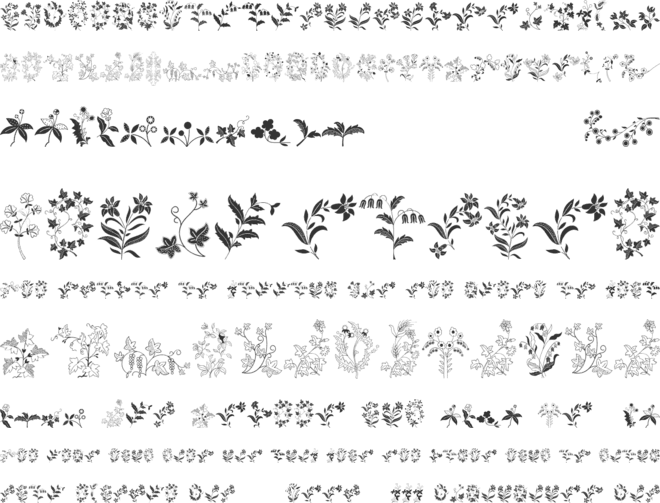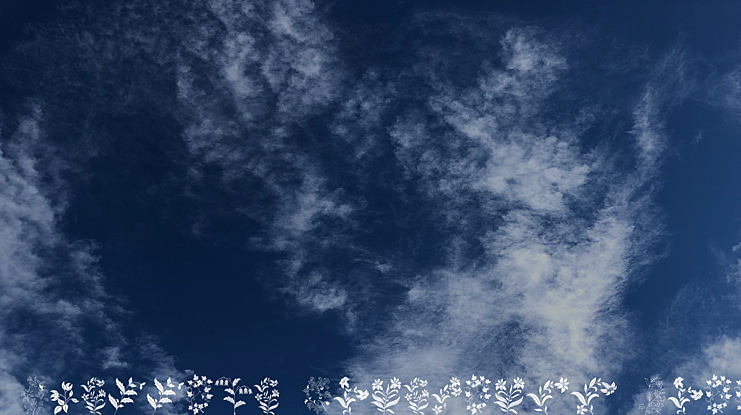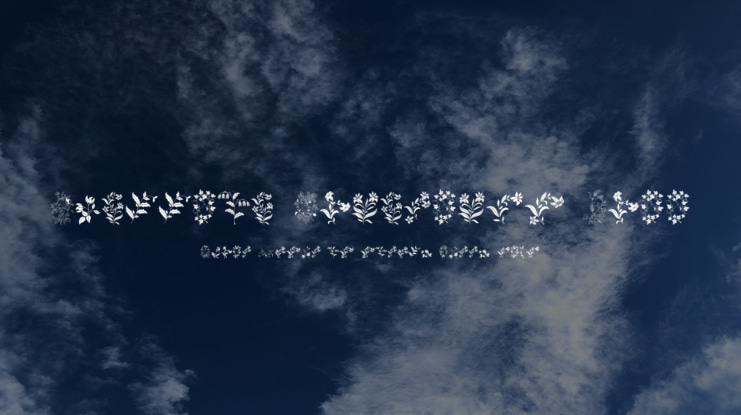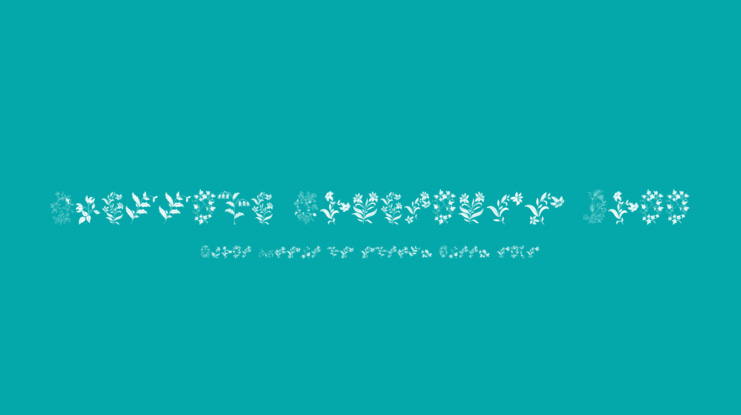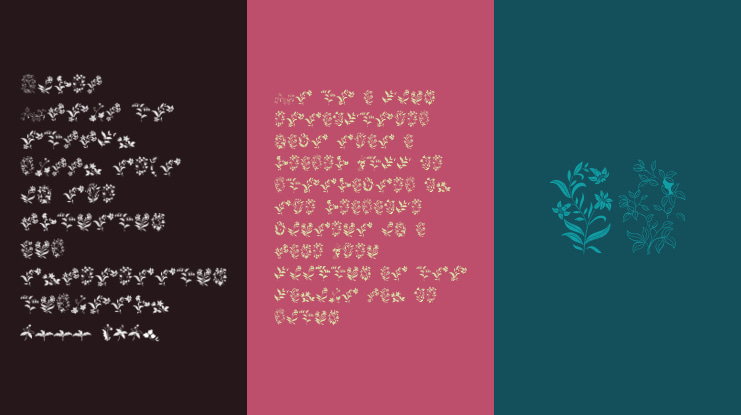
Azalleia Ornaments Free Font
Azalleia Ornaments Free, by Intellecta Design
ABOUT THE FONT
Azalleia Ornaments is a new flourished ornaments typeface. Well elaborated and unusual design, inspired by old cross-stitch and craft books and entirely designed by hand, without use of auto-tracing and available in two different designs. Buying the two fonts pack you get free the exclusive collection of Azalleia Ornaments Naive Colored eps vectors, zipped with the font and ready to use. Take a look at the banners in the gallery section to see samples of this nice collection of eps free vectors. And Buying the entire family (Azalleia, Azalleia Two, Azalleia Ornaments and Azalleia Ornaments Two) you get free two eps packs : Naive Colored Flowers and Naive Colored Initials from Azalleia.